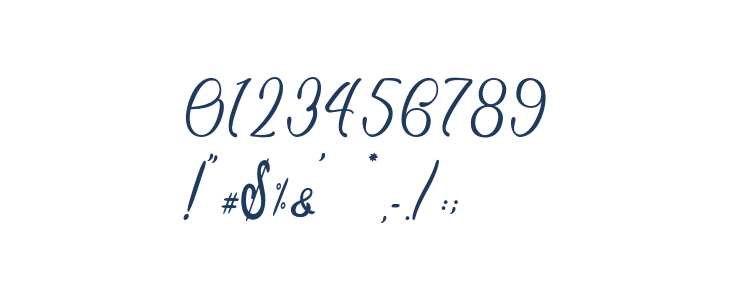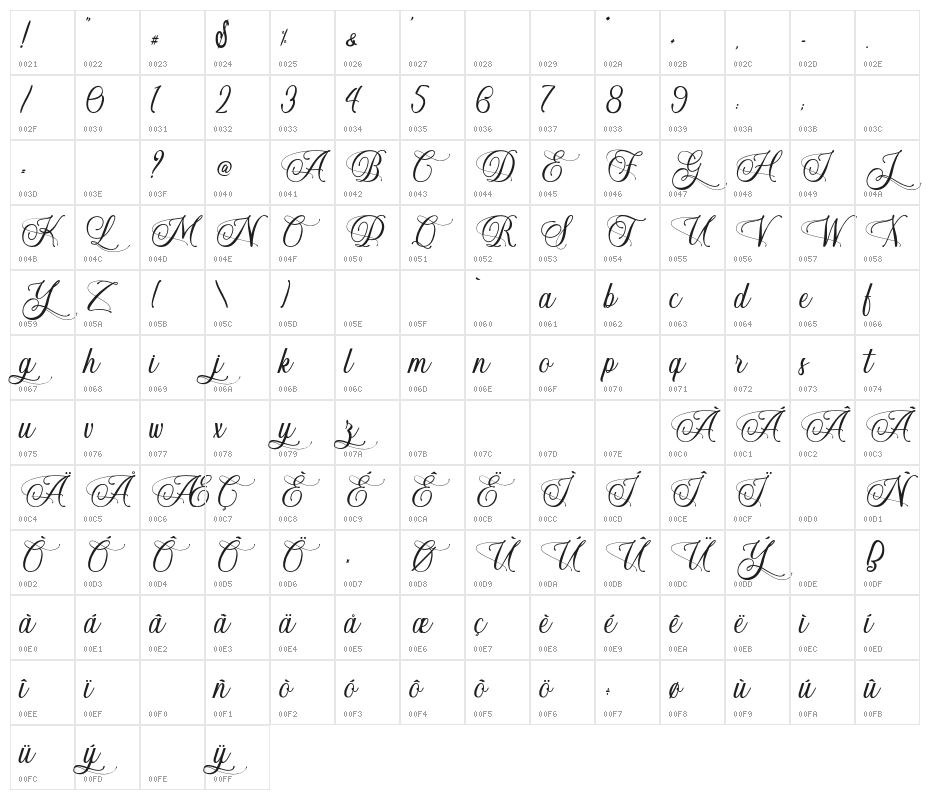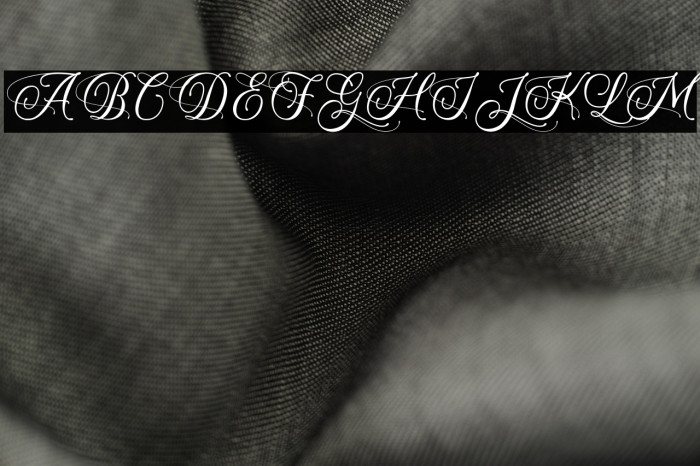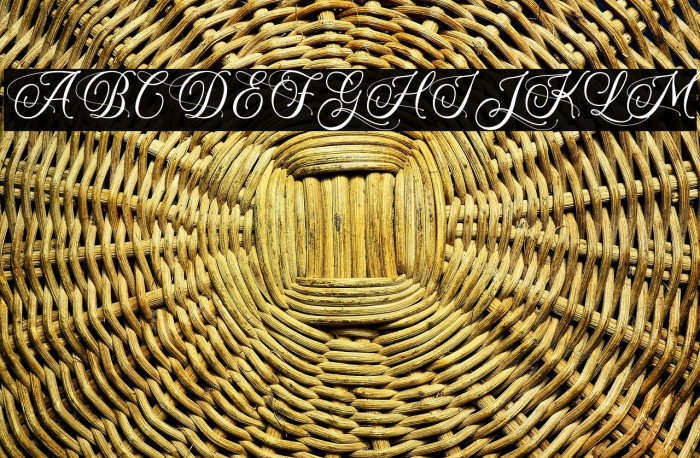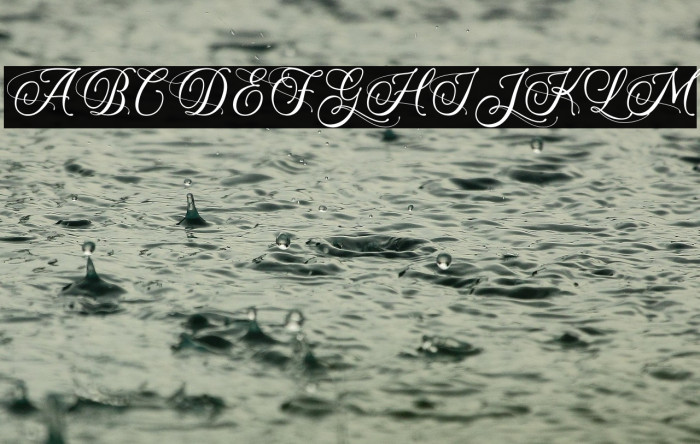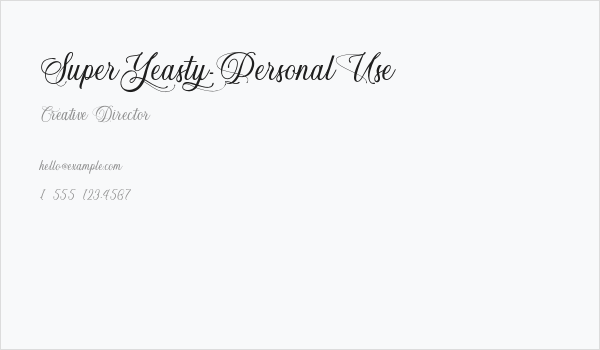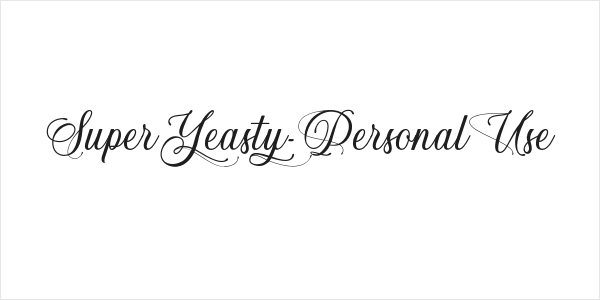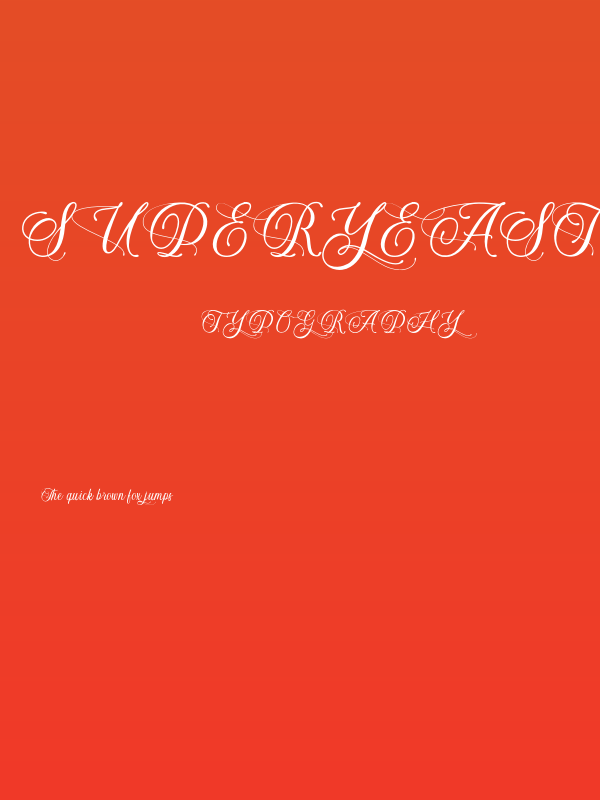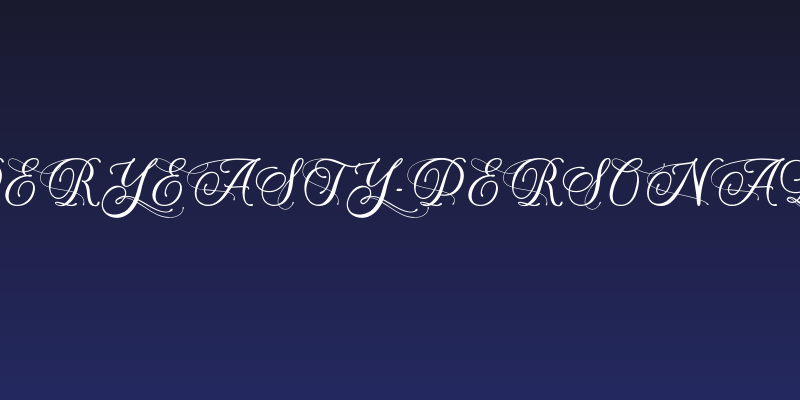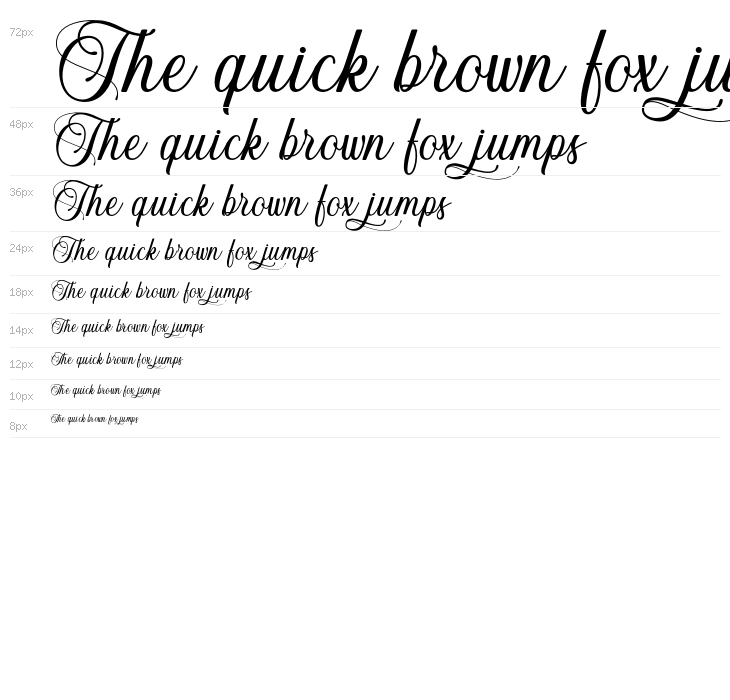
SuperYeasty-PersonalUse Font
SuperYeasty-PersonalUse Description
This elegant script font features intricate, flowing letterforms with elaborate swashes and flourishes. The uppercase letters are particularly ornate, with decorative loops and curls that give a sense of movement and sophistication. The lowercase letters maintain a consistent style, with smooth, connected strokes that enhance readability while preserving the font's decorative nature. Numbers and special characters are designed to match the font's overall aesthetic, ensuring a cohesive look across all text. The font's style is reminiscent of classic calligraphy, making it suitable for projects that require a touch of elegance and refinement.